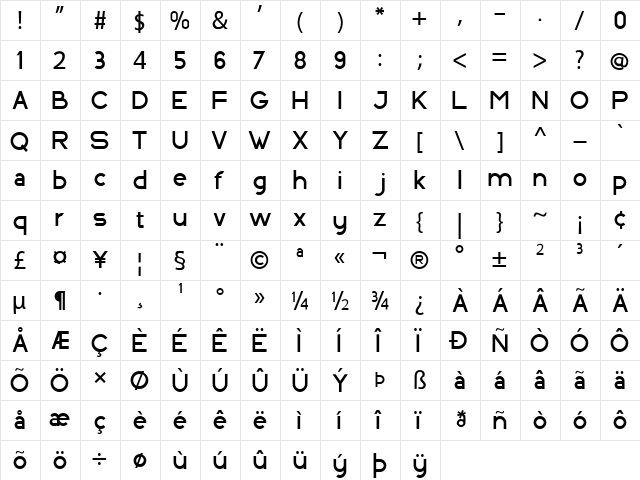
INDOSCREEN Regular
| Foundry | Zulkhairilettering |
| Designer | Zulkhairi |
Design Context for INDOSCREEN Typeface
INDOSCREEN takes a measured approach to typography — its balanced proportions and neutral character make it a reliable workhorse for both digital and print work.